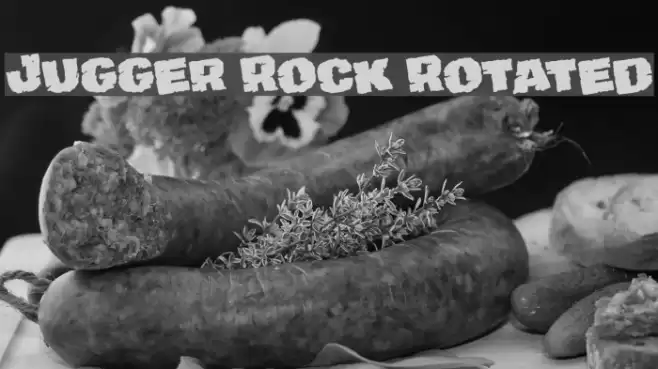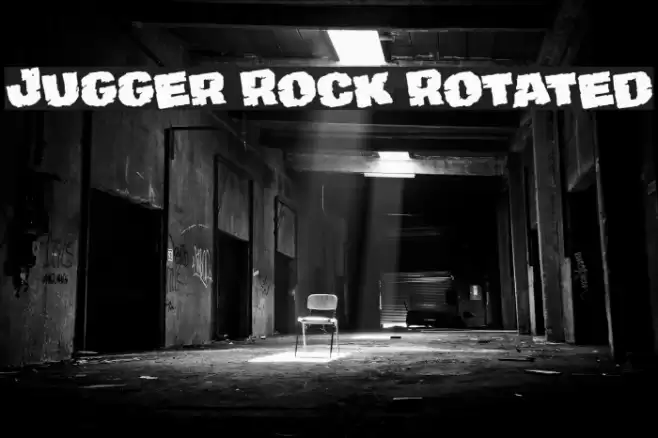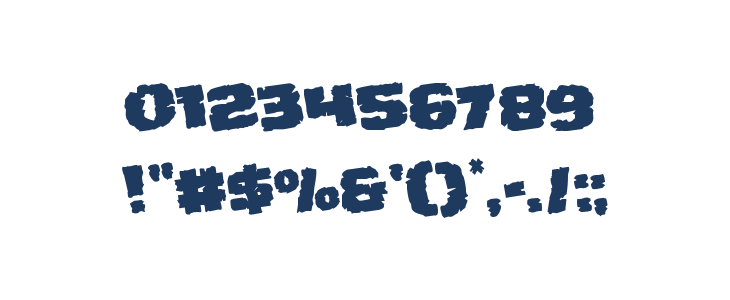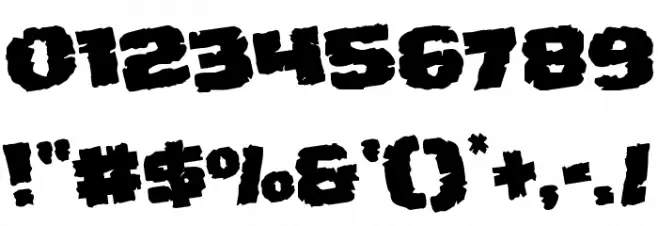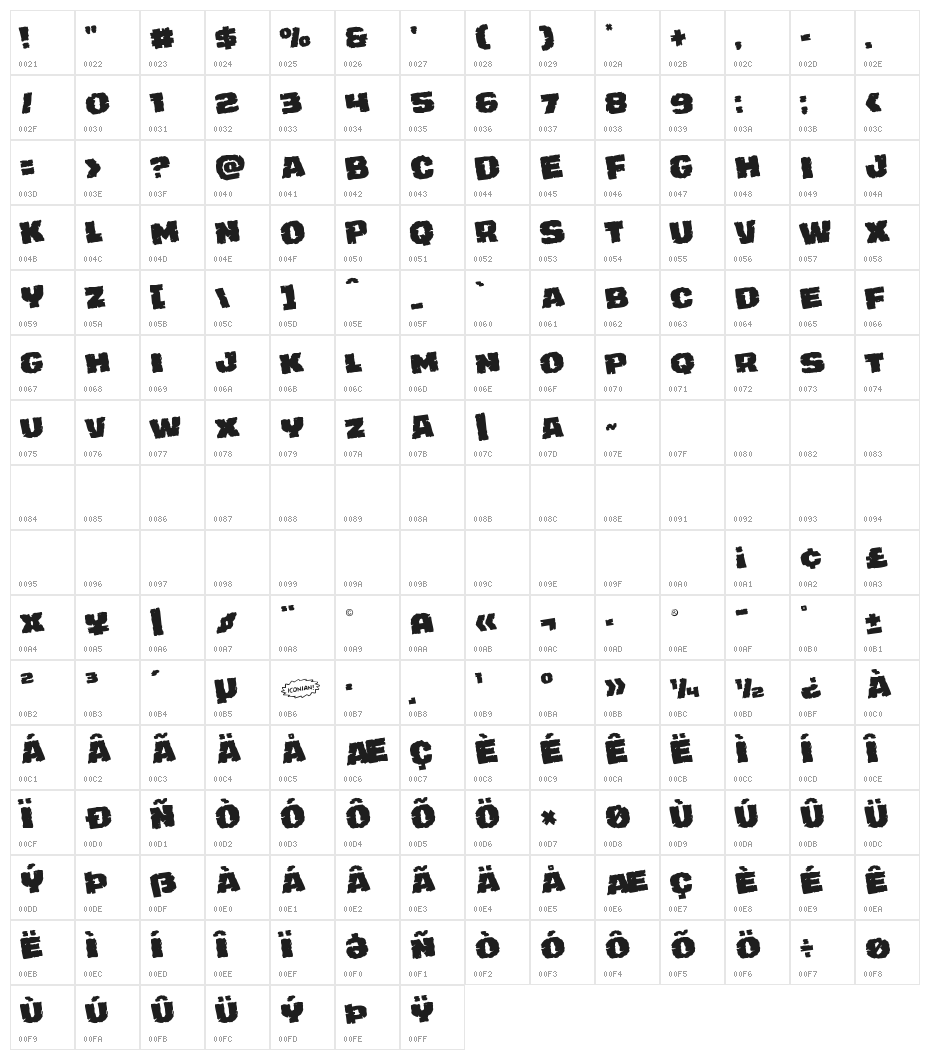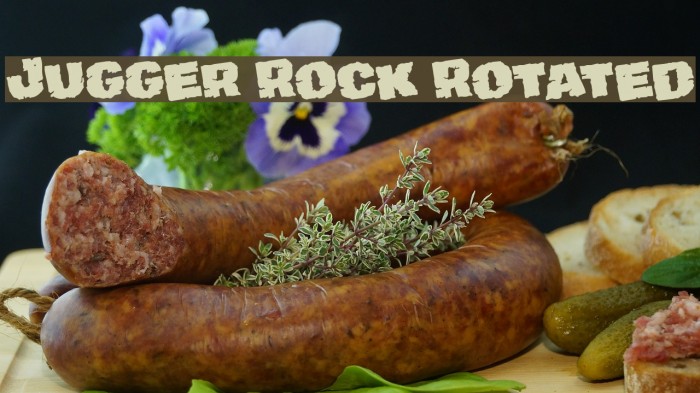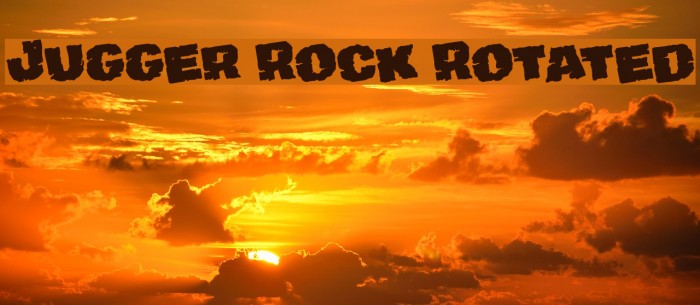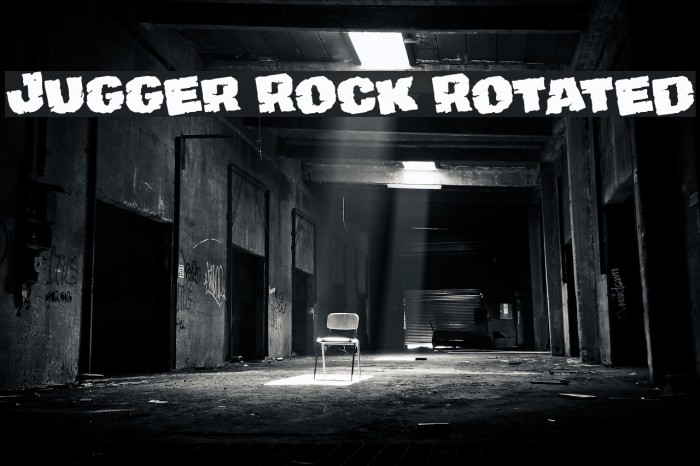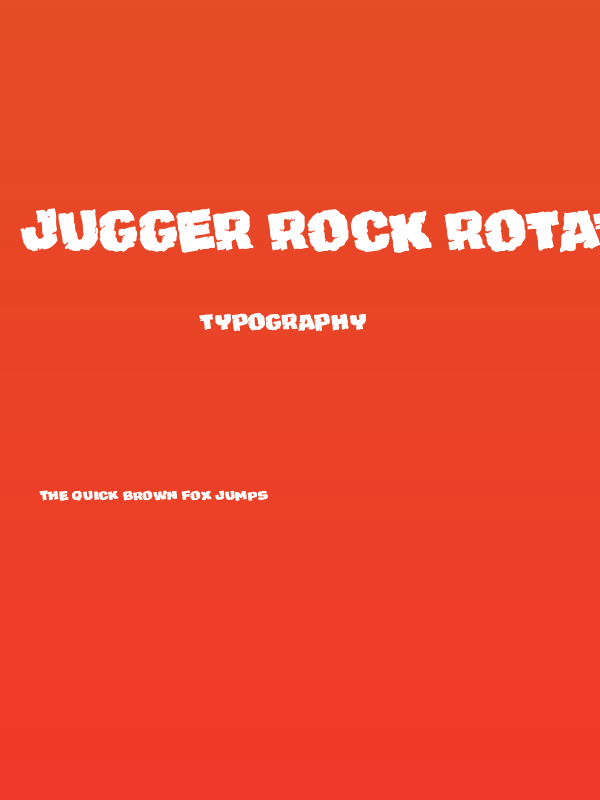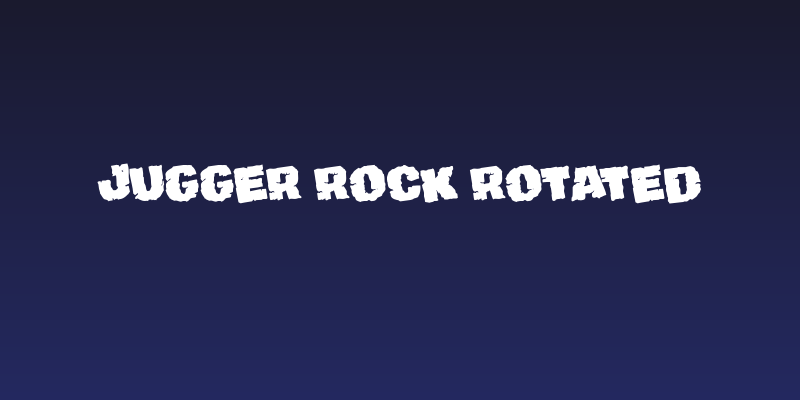
Jugger Rock Rotated Font
Jugger Rock Rotated Description
This font features a bold, rugged style with a distressed texture that gives it a rock-like appearance. The characters are heavily weighted and have an uneven, jagged edge, contributing to a raw and dynamic aesthetic. The uppercase and lowercase letters maintain a consistent style, with the numbers and special characters following suit. The font's design is reminiscent of grunge or urban street art, making it stand out with its unique and rebellious flair.
A bold, rugged font with a distressed, rock-like texture from Uncategorized fonts.
- Proposed Projects: Ideal for music album covers, event posters, or branding for edgy, modern companies.
- Use Case: Logos, Posters, Headlines